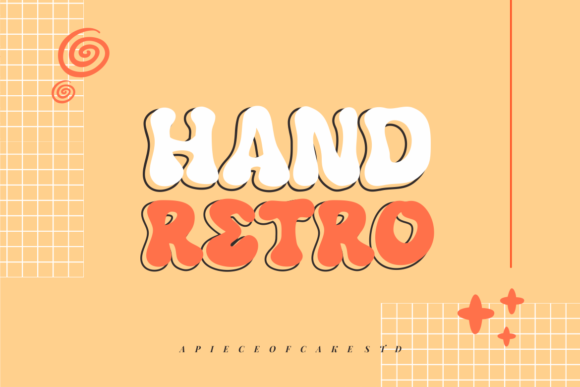
In a world clamoring for distinction, Hand Retro Font emerges as a beacon of originality, ready to transform your creative endeavors into captivating masterpieces. Its essence lies in the fusion of timeless retro charm and contemporary sophistication, a captivating dance between the past and the present.
Hand Retro Font is not merely a collection of glyphs; it is an invitation to embark on a journey through time, where nostalgia and modernity harmoniously intertwine. Its meticulously crafted curves and playful strokes evoke a sense of familiarity, reminiscent of classic signage and vintage advertisements. Yet, it remains resolutely modern, exuding an air of elegance and refinement that is perfectly attuned to the sensibilities of today's design landscape.
With its versatility as its defining characteristic, Hand Retro Font effortlessly adapts to a myriad of applications, like a chameleon seamlessly blending into its surroundings. Whether you seek to craft heartfelt greeting cards imbued with warmth and sentimentality or captivating headlines that command attention, this font will prove to be an invaluable asset in your creative arsenal. It lends a touch of playful charm to social media posts, transforming them into eye-catching expressions of your brand's personality. Logos designed with Hand Retro Font exude a timeless appeal, radiating a sense of heritage and authenticity that resonates with audiences.
The creative possibilities unlocked by Hand Retro Font are as boundless as the imagination itself. Unleash your inner artist and create stunning posters that capture the essence of bygone eras, evoking a sense of nostalgia and wonder. Design t-shirts adorned with witty slogans or heartfelt messages, transforming them into wearable works of art. Bring life to invitations and wedding stationery with the font's intricate details, adding a touch of elegance and romance to these momentous occasions.
Hand Retro Font is more than just a font; it is a gateway to a world where creativity flourishes and individuality shines. It empowers you to manifest your artistic vision, transforming ordinary designs into extraordinary expressions of your unique style. Embrace the allure of Hand Retro Font and embark on a creative journey that will leave an enduring mark on the hearts and minds of your audience.